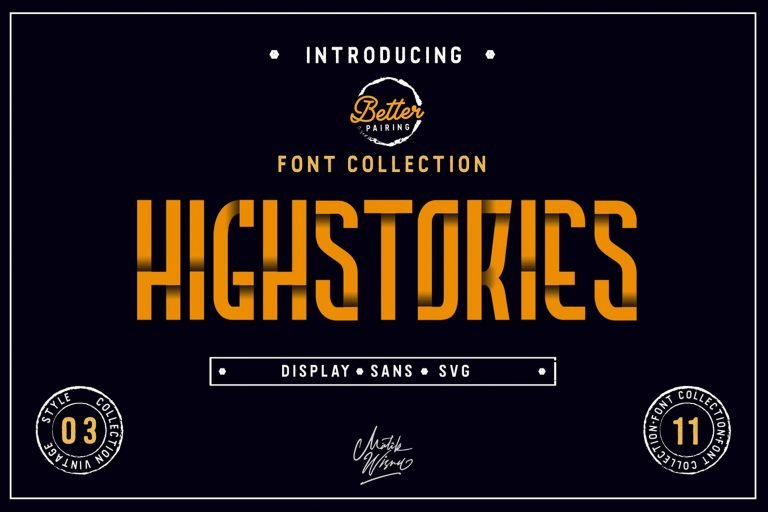
Highstories Font Family
An modern font family, If you are designing a logo or any other project, this is a good choice. Introducing Highstories Font. The best font collection with some interesting styles and a beautiful blend in your design, the letters look firm and easy to use in your various works best for use Poster, Branding, Logotype,t-shirt design product design,packaging and Quotes and more again.